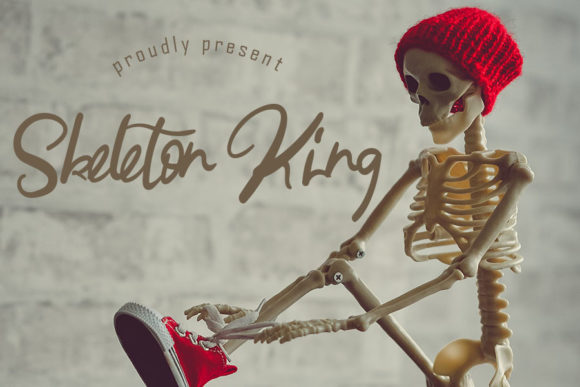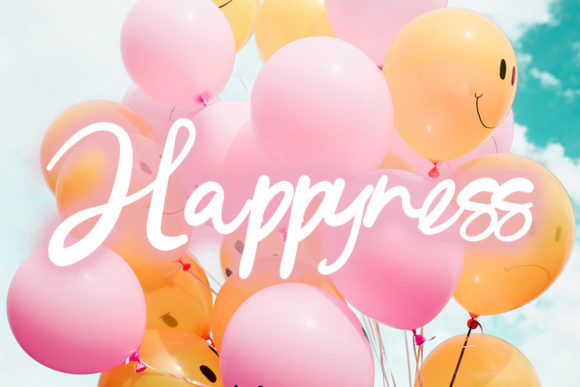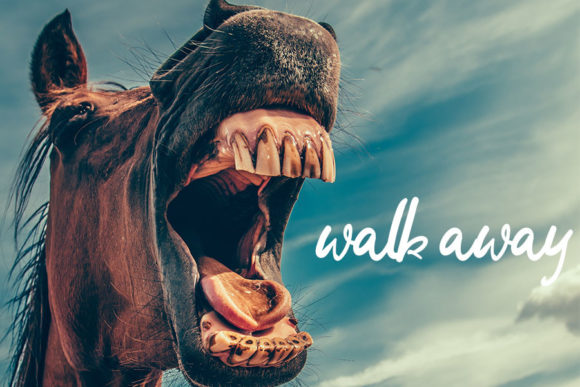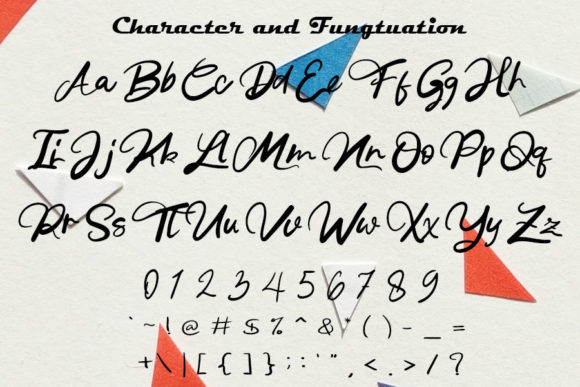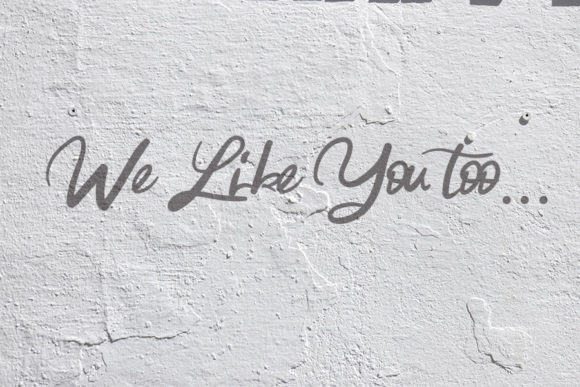
Skeleton King Font
About Skeleton King Font
Skeleton King is an elegant and dainty handwritten font that features sweet and delicate swashes. This original look will appeal to a wide range of crafty ideas, from letterheads and titles, to stationery.